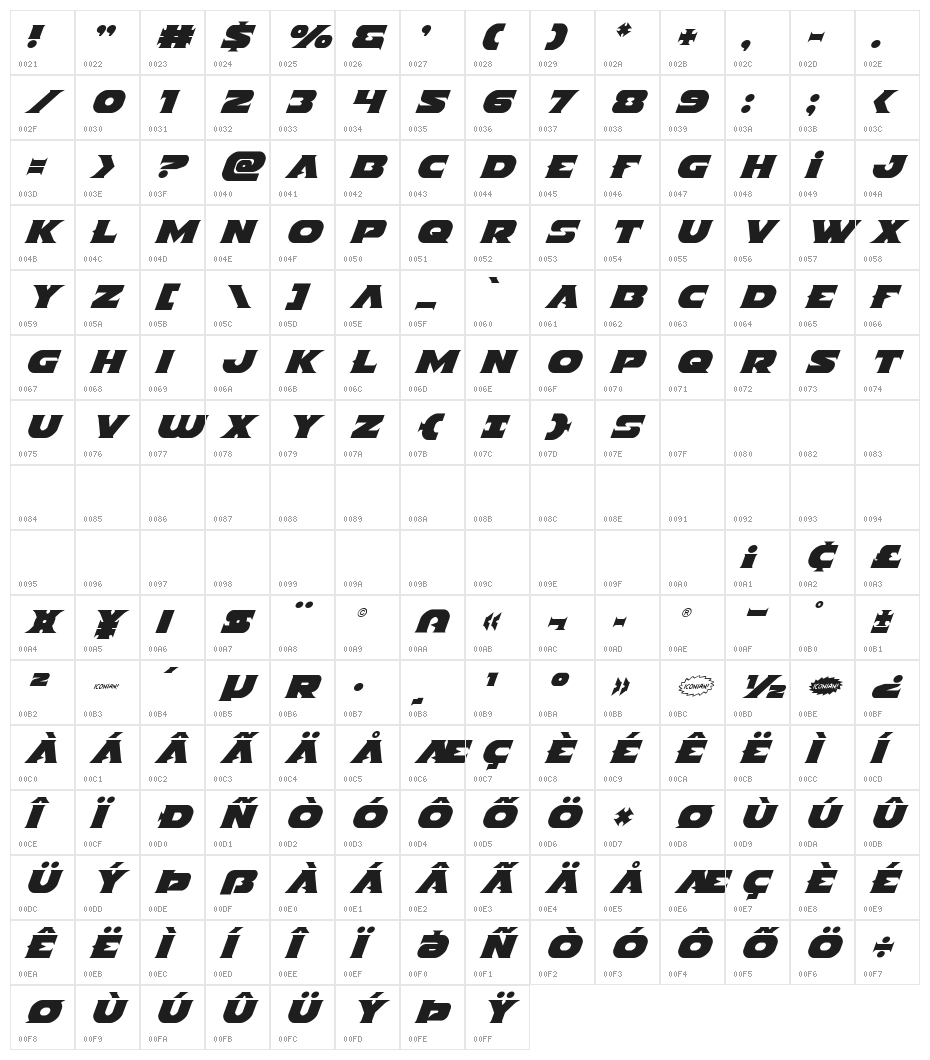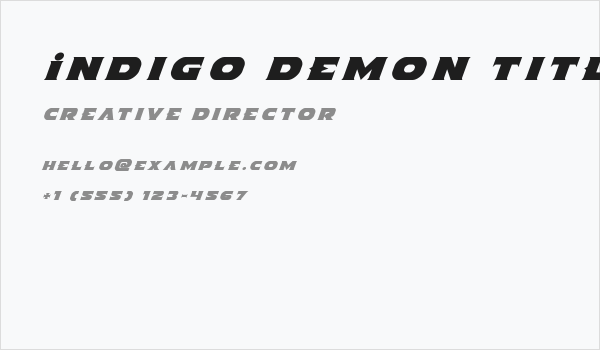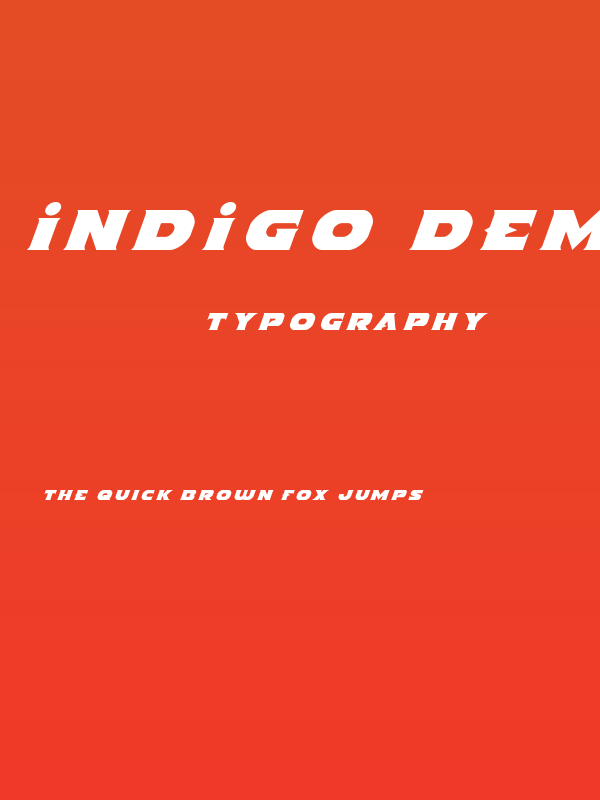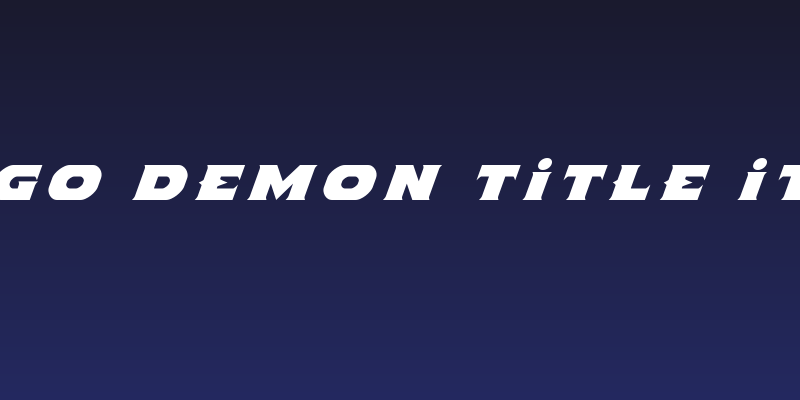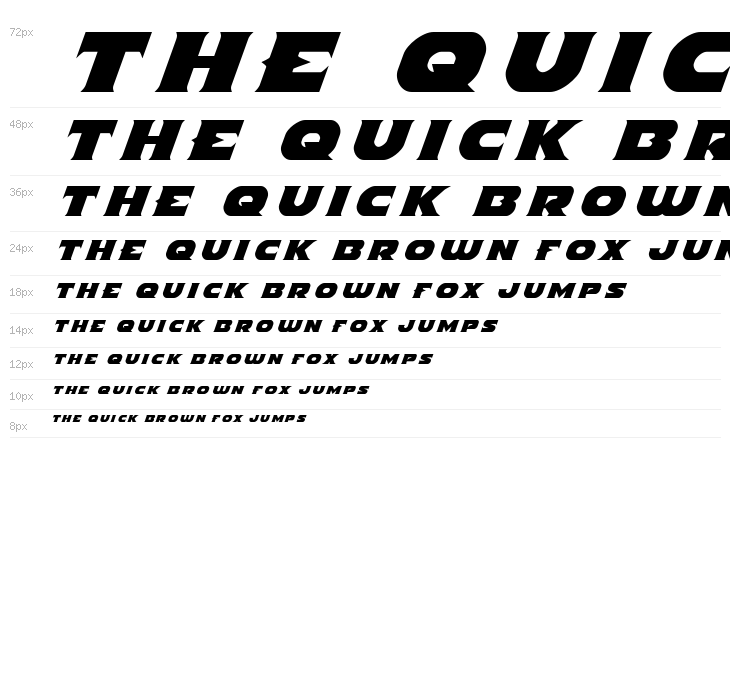
Indigo Demon Title Italic Font
Indigo Demon Title Italic Description
This font features a bold and dynamic style with a strong italic slant, giving it a sense of movement and energy. The characters are thick and robust, with sharp angles and unique cuts that create a futuristic and edgy appearance. The uppercase and lowercase letters maintain a consistent design, while the numerals and special characters complement the overall aesthetic. The font's boldness and distinct style make it stand out, suitable for attention-grabbing designs.